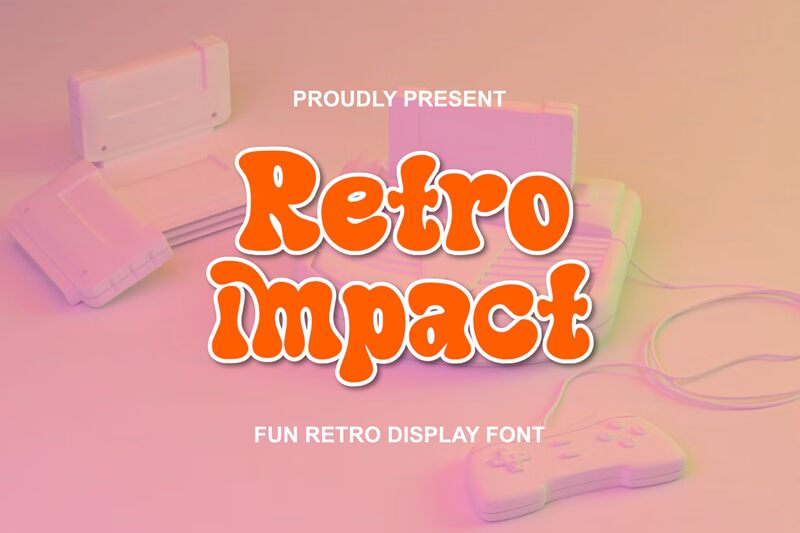
Retro Impact font is designed by Muhammad Yafinuha. Retro Impact is a fun, bold and playful display font that's a throwback to the classic groovy aesthetic. With its friendly, informal vibe, it's in its element when used as the centrepiece of your retro-inspired designs! Retro Impact has thick strokes, expressive curves and rounded edges that make it comfortable to sit alongside busy compositions or wacky visuals.
It's suitable for use in your extensive typographic design projects. This includes t-shirt prints, eye-catching posters and flyers; surface designs like textiles or memorable packaging; digital applications such as logos or video thumbnails; and any retro-themed work requiring statement typography with an authentic feel.